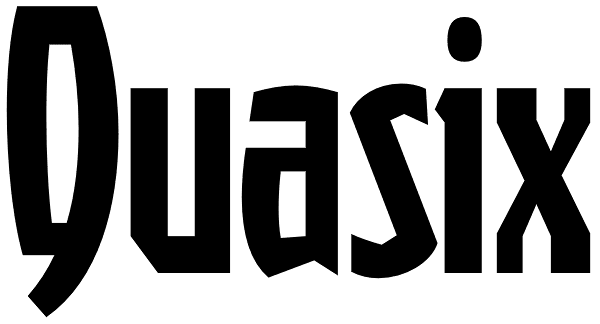
Quasix
Quasix is a compact, industrial headliner. Like the inside of a machine, it appears functional, even though the specific purpose of each individual part may not be understood by the viewer. Often, a designer needs to convey the idea of engineered...